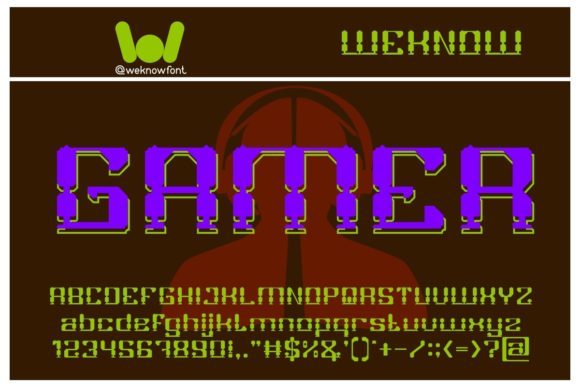
Gamer Font: The Ultimate Display Font for Bold and Edgy Designs
In the world of design, fonts play a crucial role in conveying the tone and personality of a brand or project. For designers and crafters looking for a unique and eye-catching font, Gamer Font is an excellent choice. This cool, bold, and thick lettered display font is ideal for writing web designs, business cards, or pretty much anything else that requires a unique touch.
What is Gamer Font?
Gamer Font is a display font designed to make a statement. Its bold and thick letters are perfect for creating eye-catching headlines, titles, and captions. The font’s edgy and modern design makes it ideal for projects that require a cool and youthful vibe. Whether you’re designing a website, a business card, or a flyer, Gamer Font is sure to grab attention and leave a lasting impression.
Key Features of Gamer Font
- Bold and Thick Letters: Gamer Font features bold and thick letters that are perfect for creating eye-catching headlines and titles.
- Cool and Edgy Design: The font’s modern design makes it ideal for projects that require a cool and youthful vibe.
- Highly Versatile: Gamer Font can be used for a wide range of design projects, from web designs to business cards, flyers, and more.
- Easily Readable: Despite its bold design, Gamer Font is easily readable, making it perfect for use in titles, headings, and captions.
How to Use Gamer Font
Gamer Font is incredibly versatile and can be used for a wide range of design projects. Here are some ideas on how to use Gamer Font:
- Web Design: Use Gamer Font as a headline font for your website to create a bold and eye-catching title.
- Business Cards: Add a unique touch to your business cards with Gamer Font.
- Flyers and Brochures: Use Gamer Font to create eye-catching headlines and titles for your flyers and brochures.
- Social Media Graphics: Create bold and eye-catching social media graphics with Gamer Font.
Benefits of Using Gamer Font
Using Gamer Font offers several benefits, including:
- Unique and Eye-Catching Designs: Gamer Font helps you create unique and eye-catching designs that grab attention.
Tips for Using Gamer Font Effectively
Here are some tips for using Gamer Font effectively:
- Use it Sparingly: Use Gamer Font sparingly to avoid overwhelming your design.
- Pair it with Other Fonts: Pair Gamer Font with other fonts to create a unique and visually appealing design.
Gamer Font is a cool, bold, and thick lettered display font that’s perfect for designers and crafters looking for a unique touch. Its versatility, readability, and modern design make it an excellent choice for a wide range of design projects. By following the tips outlined above, you can use Gamer Font to create eye-catching and professional-looking designs that grab attention and leave a lasting impression.